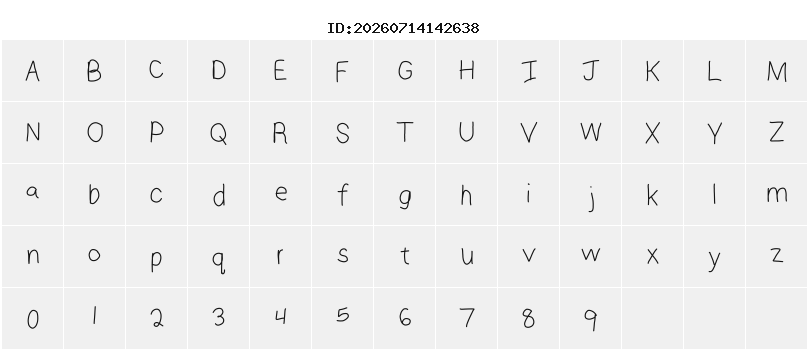
• Font Name: Jaymse
• Full Font Name: Jaymse
• PostScript Name: Jaymse
• Character Count: 413
About Jaymse.ttf
Jaymse.ttf is a modern, elegant sans-serif font designed for ultimate readability and visual harmony. Perfect for branding, headlines, web design, and print materials.